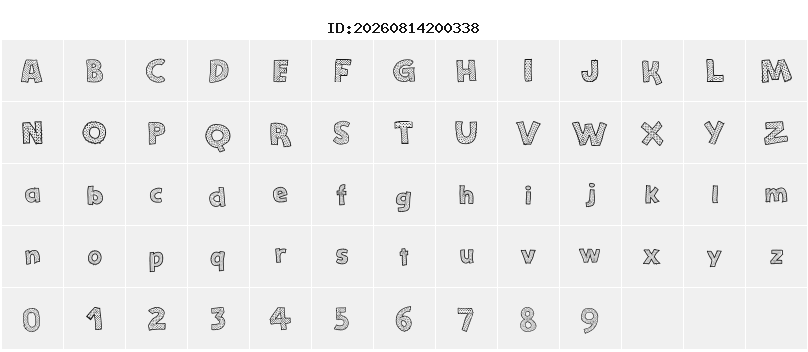
• Font Name: Stefanie Dots
• Designer: Galdino Otten
• Description: This is a cartoon font style.
About Stefanie Dots.ttf
Stefanie Dots.ttf is a modern, elegant sans-serif font designed for ultimate readability and visual harmony. Perfect for branding, headlines, web design, and print materials.